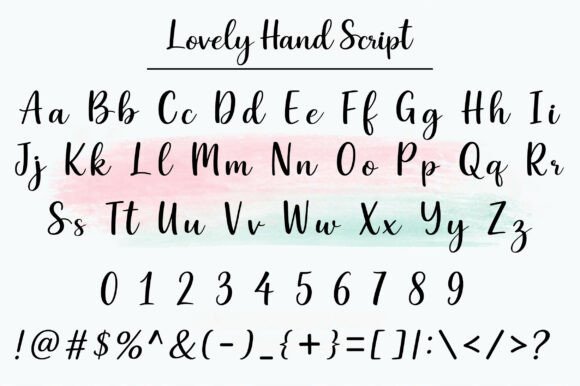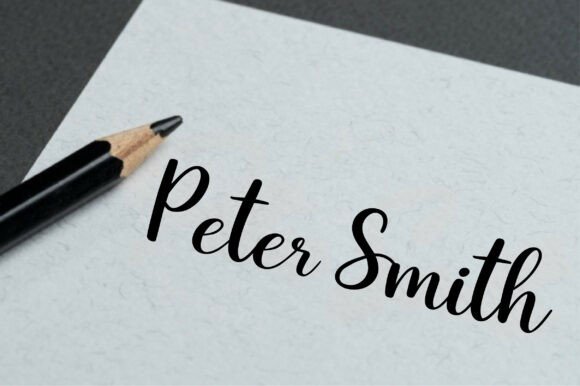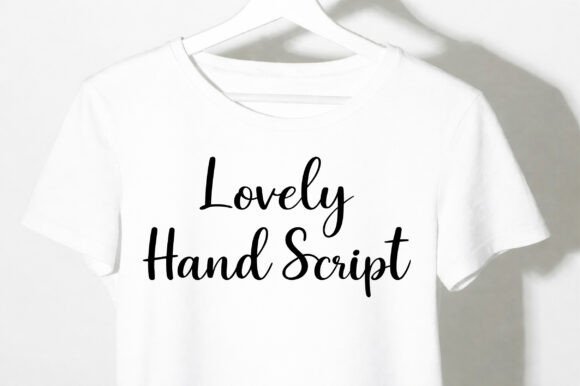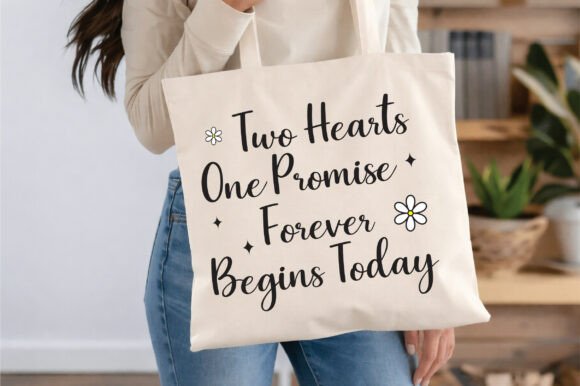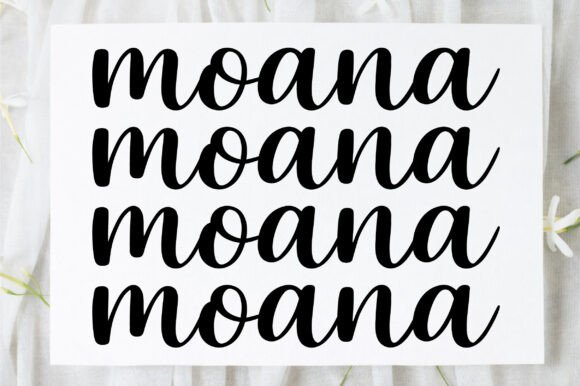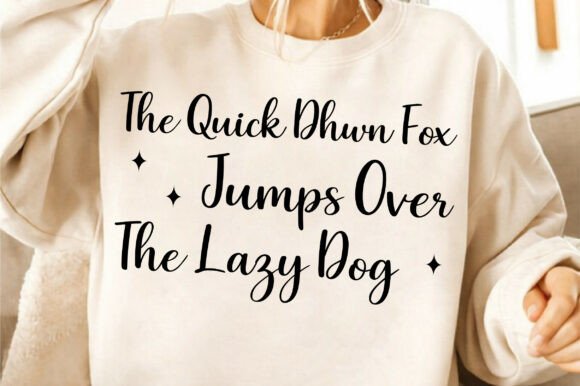
Introduction to Lovely Hand Script Font
Have you ever found yourself lost in the world of design, searching for the perfect font to elevate your creative project? Perhaps you’re designing a wedding invitation, or creating a logo for a luxury lifestyle brand. Whatever your design endeavor, we’ve all been there – frantically scrolling through font libraries, hoping to stumble upon that one special something that captures the essence of our vision. And then, it happens. You come across a font that takes your breath away, transporting you to a world of elegance and sophistication. For many designers, that font is the Lovely Hand Script Font.
This beautiful handwritten font has captured the hearts of designers everywhere with its exquisite loops and rhythmic character connections. Whether you’re a seasoned design pro or just starting out, the Lovely Hand Script Font is a valuable resource that adds an artisanal, high-end touch to any project. With its high-quality design and transparent background, it’s the perfect choice for a wide range of creative applications.
Key Features of Lovely Hand Script Font
- Unique, handwritten design with a touch of elegance, perfect for creative projects and design resources.
- High-quality font with a transparent background, ideal for use on various backgrounds and designs.
- Includes a variety of characters, including uppercase and lowercase letters, numbers, and punctuation marks, to cater to diverse design needs.
- Designed at a high resolution of 300 DPI, ensuring crisp and clear typography in print and digital applications.
- Perfect for use in various design projects, including logos, branding, invitations, and more, where a personal and creative touch is required.
Honest Review: Lovely Hand Script Font
I recently had the chance to work with the Lovely Hand Script Font, and I must say it’s been a game-changer for my design projects. This beautiful font is a must-have for any creative designer looking for a high-quality, free download.
What works well with the Lovely Hand Script Font is its versatility. It’s perfect for creating a unique and personalized design for a wedding invitation, a logo for a small business, or even a title for a social media post. The font’s elegant and playful feel makes it suitable for a wide range of creative projects.
Some of the standout features of the Lovely Hand Script Font include:
- High-quality design that’s perfect for printing
- Transparent background, making it easy to use with any design
- Perfect for adding a touch of elegance to any design project
However, I did encounter a few limitations with the font. ⚠️ Some of the characters may not be as smooth as others, and the font can be a bit tricky to read at smaller sizes. But overall, these limitations don’t detract from the font’s overall quality and charm.
Overall, I’m thoroughly impressed with the Lovely Hand Script Font. It’s a valuable addition to any designer’s toolkit, and I highly recommend it to anyone looking for a high-quality, free download. ✨
Is the Lovely Hand Script Font suitable for use on a transparent background?
Yes, the Lovely Hand Script Font has a transparent background, making it perfect for use on logos, icons, and other design elements that require a clean and modern look.